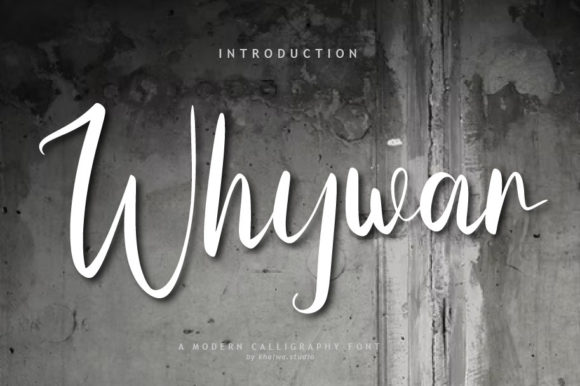
Whywar Script: A Handwritten Font for Modern Branding
There's a particular feeling you get when a design just clicks. It's that moment when a logo feels instantly recognizable, when a quote on a social media post stops the scroll, or when the typography on a product label communicates its quality before you even read the words. That feeling often comes down to a single, powerful choice: the typeface. For designers, entrepreneurs, and creators seeking to inject personality and warmth into their work, Whywar Script presents a compelling solution. This premium script font isn't just another set of letters; it's a design asset crafted to bring a unique, human touch to a wide array of projects.
Understanding the Visual Appeal of Whywar Script
At its core, Whywar Script is a handwritten font that balances charm with clarity. Unlike some overly casual or chaotic script typefaces, it maintains a legible, flowing elegance. Each letterform feels individually crafted, with subtle variations in stroke weight and a natural, connected baseline that mimics the organic rhythm of real handwriting. The overall personality is one of approachable sophistication—it's friendly enough for a personal blog header yet refined enough for a boutique's brand identity.
The font's appeal lies in its versatility as a display font. It commands attention without shouting. Its visual characteristics—graceful swashes, balanced letter spacing, and a consistent yet lively baseline—make it particularly effective for short bursts of text where impact is key. Think of it as the typographic equivalent of a confident, warm handshake. It makes a strong first impression and establishes a sense of authenticity and care, which is invaluable in a digital landscape often dominated by sterile, uniform sans serif fonts.
Where Whywar Script Truly Shines
The true test of any creative font is its application. Where does a typeface like Whywar Script move beyond being merely decorative to becoming a functional part of a project's success? Its strengths are best leveraged in contexts where personality and recognition are paramount.
- Logo Design & Brand Identity: This is perhaps its most powerful application. A logo set in Whywar Script can instantly convey a brand's values—whether it's a artisan bakery, a freelance photographer, a wellness coach, or a boutique clothing line. It helps build a brand identity that feels personal, trustworthy, and memorable. The font's uniqueness aids in brand recognition, setting a business apart from competitors using more common typefaces.
- Editorial & Publishing Design: In magazine layouts, book covers, or blog graphics, Whywar Script works beautifully for pull quotes, chapter titles, or feature headings. It provides a visual break from body text set in a serif font or sans serif font, creating hierarchy and drawing the reader's eye to key messages. Its readability at larger sizes makes it ideal for this kind of editorial design.
- Packaging & Product Design: For physical goods, packaging is a silent salesperson. Using Whywar Script on labels, boxes, or tags can elevate a product's perceived value. It suggests craftsmanship and attention to detail, which is crucial for products in markets like gourmet food, cosmetics, or handmade crafts. The font's character helps tell the product's story before the customer even opens it.
- Digital & Social Media Graphics: In the fast-paced world of social media, grabbing attention is everything. Whywar Script excels in Instagram posts, Pinterest pins, Facebook headers, and YouTube thumbnails. Its handwritten quality adds a human element to digital communications, making content feel more relatable and engaging. It pairs exceptionally well with clean web design elements, creating a striking contrast that enhances visual hierarchy.
- Invitations, Quotes, & Personal Projects: Beyond commercial use, the font is perfect for wedding invitations, inspirational quote prints, greeting cards, and scrapbooking. For crafters and hobbyists, it's a tool to add a professional, polished touch to personal creations, making them feel special and custom-designed.
Making Whywar Script Work for Your Project
Choosing the right font is a strategic decision. Here’s how to evaluate if Whywar Script is the right fit and how to use it effectively.
Evaluating Project Fit and Font Pairing
Before downloading, consider your project's primary goal and audience. Is the aim to feel luxurious, playful, rustic, or modern? Whywar Script leans toward warmth and approachable elegance. It might not be the best choice for a corporate law firm's primary logo, but it could be perfect for a family-run restaurant's menu. Always view the font in context with your other design elements.
Font pairing is critical. A script font like Whywar should rarely be used for long paragraphs of body text. Its strength is in headings and accents. Pair it with a highly legible sans serif font for body copy (like Open Sans, Lato, or Montserrat) or a classic serif font for a more traditional feel (like Garamond or Georgia). This contrast creates a clear visual hierarchy: Whywar Script draws attention to the headline, while the supporting font ensures the message is easily read.
In the end, selecting a typeface like Whywar Script is about adding a layer of intention and emotion to your work. It’s a tool for storytelling. By understanding its visual strengths, applying it in the right contexts, and pairing it thoughtfully, you can leverage this modern typography asset to create designs that don't just look good, but feel genuinely connected to your audience. It’s a small detail that can make your entire project come alive.